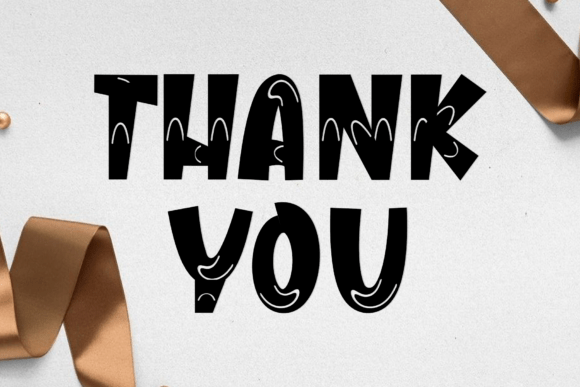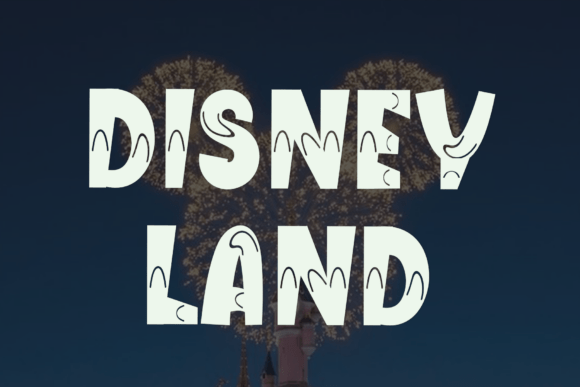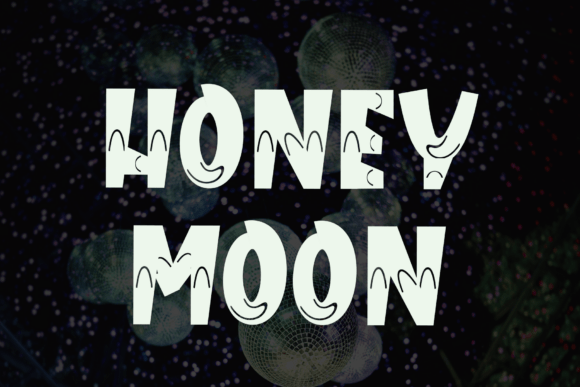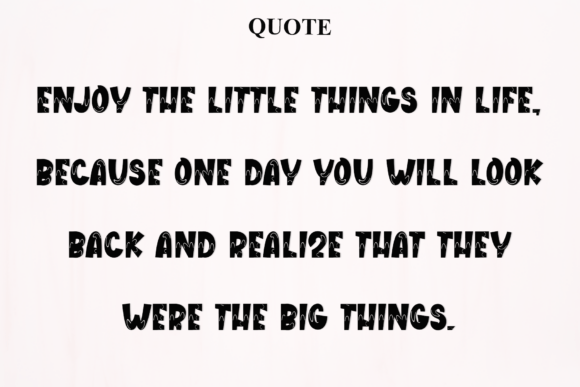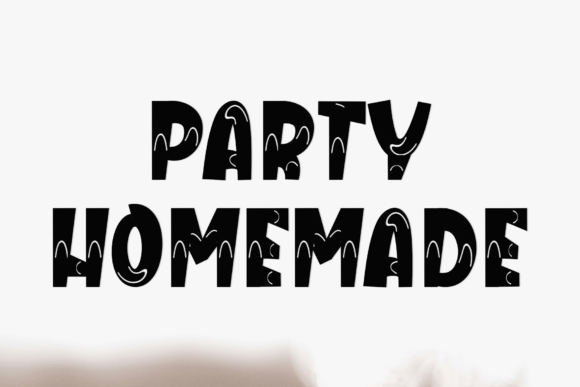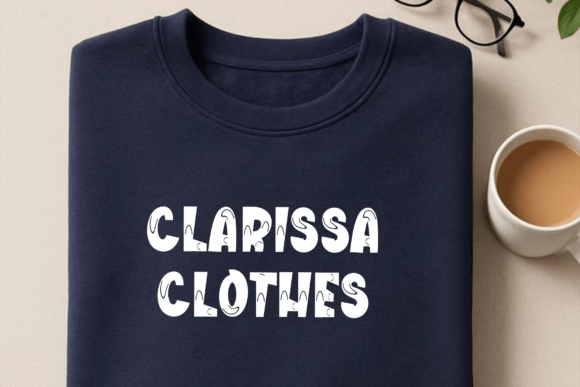
Introducing Delight Journey Font: The Ultimate Holiday Typeface
The holiday season is upon us, and what better way to get into the spirit than with a festive and merry typeface? Look no further than Delight Journey Font, a decorative font that captures the essence of the holiday season with its whimsical flair and enchanting charm. In this article, we’ll dive into the world of Delight Journey Font and explore its features, benefits, and uses, perfect for designers and crafters looking to add a touch of magic to their projects.
The Magic of Delight Journey Font
Delight Journey Font is a carefully crafted typeface designed to bring a cheerful and nostalgic ambiance to your words. Its decorative elements and whimsical flair make it perfect for holiday-themed projects, greeting cards, gift tags, and more. With Delight Journey Font, you can add a touch of enchantment to your designs and make them truly special.
Key Features of Delight Journey Font
- Festive and Merry Design: Delight Journey Font is designed to capture the spirit of the holiday season, making it perfect for Christmas, Hanukkah, New Year’s Eve, and other winter celebrations.
- Decorative Elements: The font features decorative elements, such as swashes, ligatures, and glyphs, that add a touch of whimsy and charm to your designs.
- Whimsical Flair: The font’s whimsical flair makes it perfect for creating unique and eye-catching designs that stand out from the crowd.
Uses for Delight Journey Font
Delight Journey Font is perfect for a variety of projects, including:
- Greeting Cards: Create festive and merry greeting cards for the holiday season, complete with decorative elements and whimsical flair.
- Gift Tags: Add a touch of enchantment to your gift tags with Delight Journey Font, making them truly special and unique.
- Holiday-Themed Projects: Use Delight Journey Font to create holiday-themed projects, such as Christmas decorations, Hanukkah cards, and New Year’s Eve invitations.
- Social Media Graphics: Add a touch of holiday cheer to your social media graphics with Delight Journey Font, making them stand out from the crowd.
Benefits of Using Delight Journey Font
By using Delight Journey Font, you can:
- Add a Touch of Magic to Your Designs: Delight Journey Font brings a touch of enchantment and whimsy to your designs, making them truly special.
- Stand Out from the Crowd: Delight Journey Font’s unique and whimsical design makes it perfect for creating eye-catching designs that stand out from the crowd.